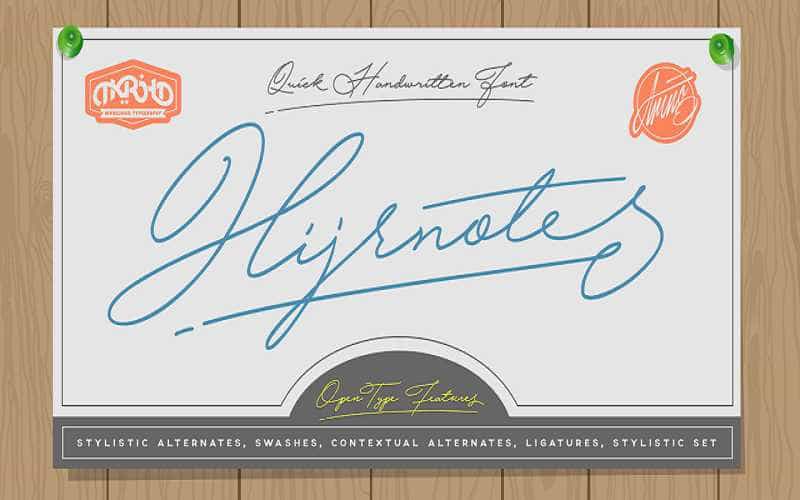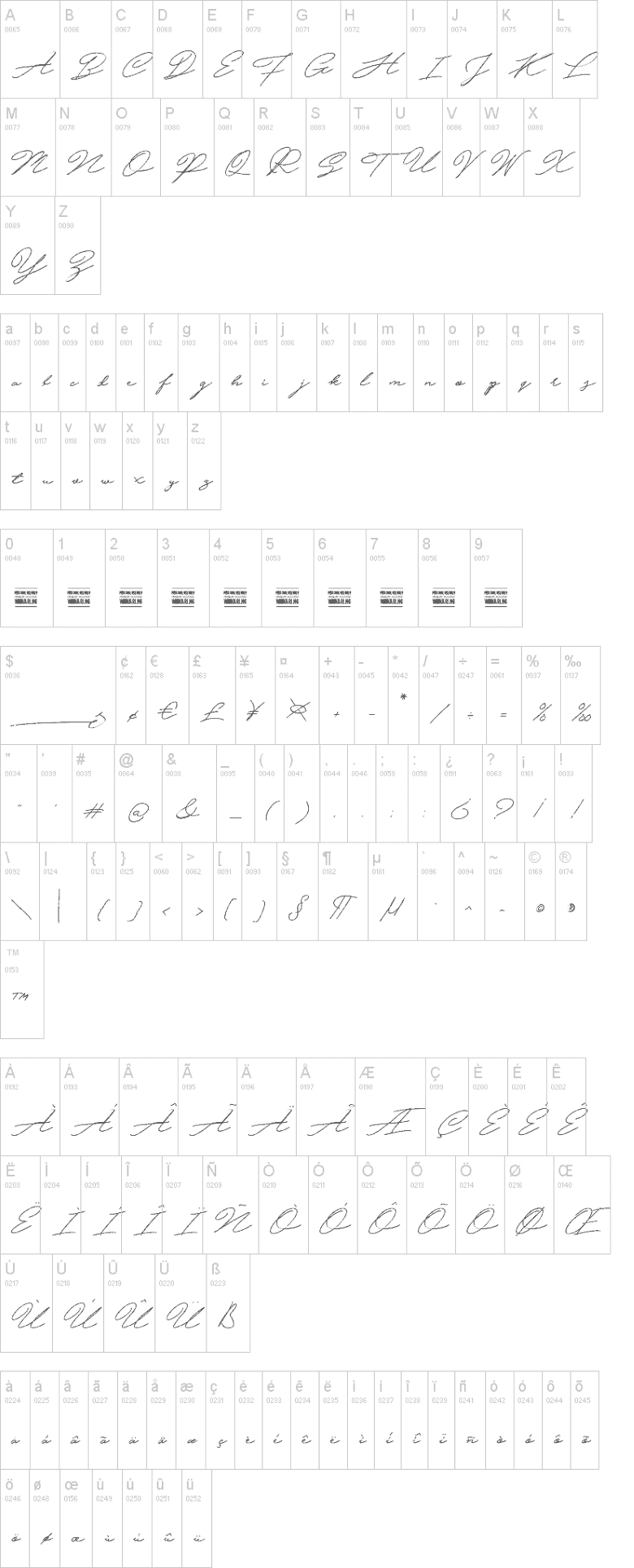
Discover Hijrnotes Font Free, part of the Calligraphy collection—a versatile and unique font perfect for adding a personal touch to your projects. Download it for free and enjoy crafting designs with style, from invitations to social media posts. This font is available exclusively for personal use, giving you the freedom to create without limits. Unlock your creativity with Hijrnotes Font Free today!
Hijrnotes, created by designer Mans Greback and free for personal use, is available with both uppercase letters as well as some unique characters. Including: upper and lowercase characters & some unique figures.